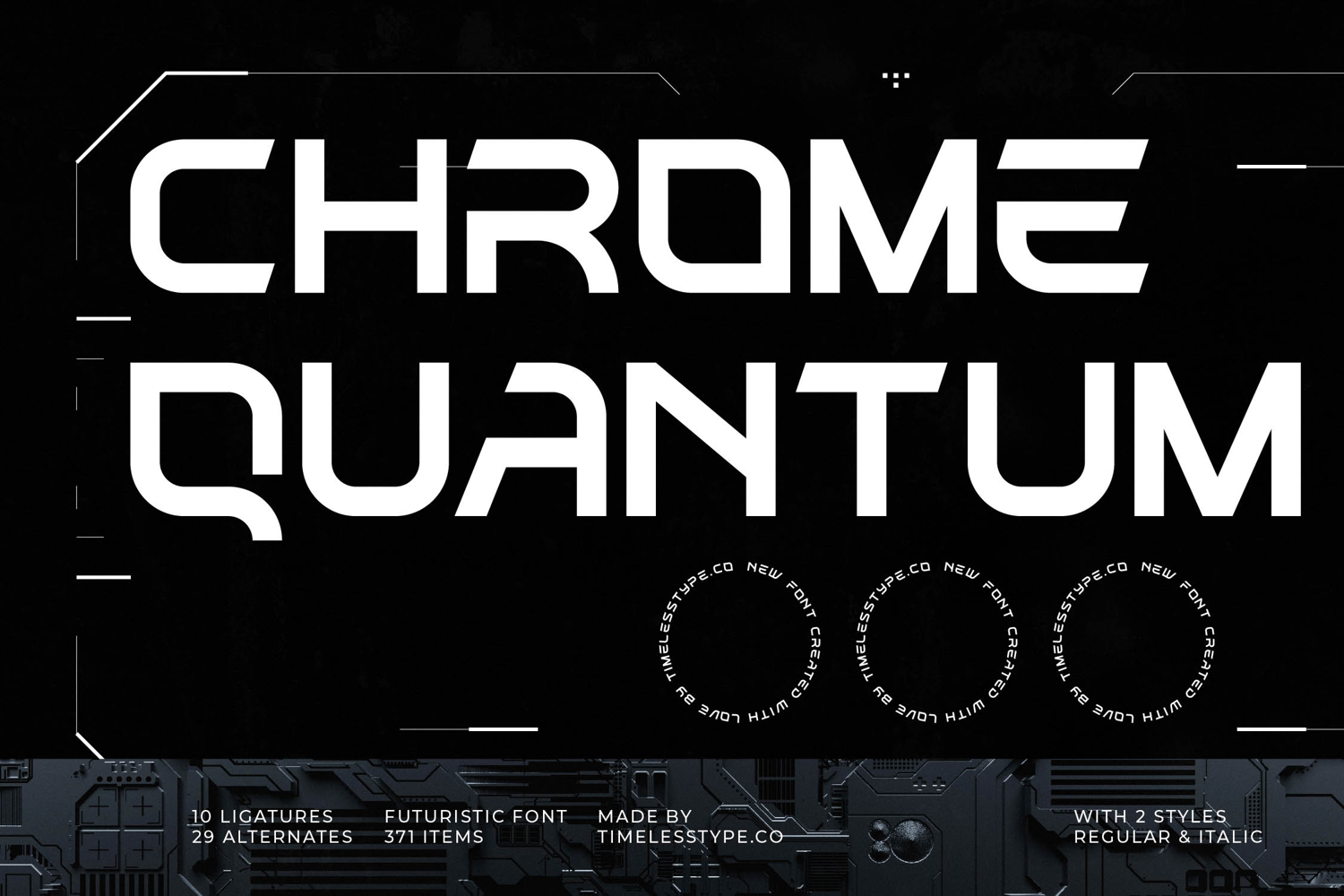
Chrome Quantum - Futuristic Font
The Chrome Quantum Typeface is a bold futuristic display font built with precision, geometry, and cutting-edge design. With 10 ligatures, 29 alternates, and 371 total glyphs, this typeface provides designers with extensive flexibility to craft sharp, innovative, and high-tech typography. Its sleek forms, angular cuts, and cybernetic aesthetic make it a perfect choice for projects that demand a futuristic identity, modern innovation, and powerful visual impact. Chrome Quantum captures the essence of sci-fi and advanced technology, making it stand out in both digital and print contexts.
This font is especially effective for branding and identity, particularly for technology companies, gaming studios, esports teams, automotive brands, and futuristic startups. Its bold, geometric structure conveys innovation and strength, making it ideal for memorable logos, packaging, and modern brand marks.
In editorial and promotional design, Chrome Quantum enhances magazine covers, posters, and advertising campaigns with a futuristic edge. Its alternates and ligatures enable unique visual experimentation that makes editorial layouts visually striking.
For entertainment and cultural projects, the typeface shines in movie titles, sci-fi book covers, event posters, esports tournaments, and music album artwork. Its cyberpunk and space-age aesthetic creates a strong narrative tone, immersing audiences in futuristic storytelling.